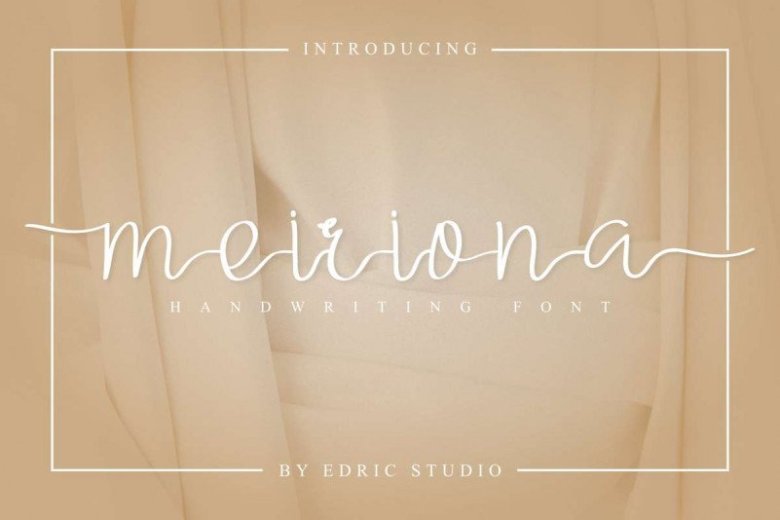
Meiriona Handwriting Font
Introducing Meiriona Font. It comes with an elegant and feminine style which is perfect to make any design stand out!
This font is perfect for branding, wedding invites, magazines, mugs, business cards, quotes, posters, and more.